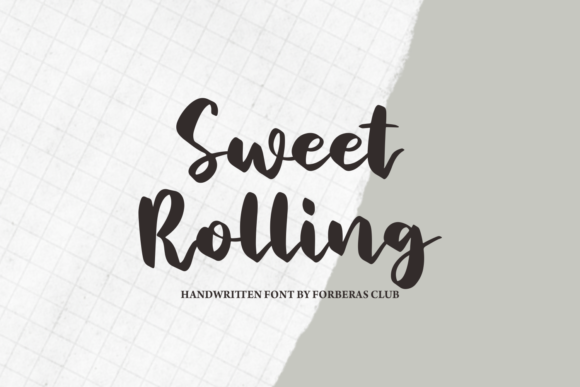
Indulge in the exquisite dance of your words with Sweet Rolling Font, an enchanting script that captivates the eyes like a whispered secret. Its flowing, ethereal curves evoke the timeless elegance of hand-drawn calligraphy, transforming your designs into captivating works of art.
Escape the mundane with Sweet Rolling Font, a font family that whispers luxury, warmth, and an enigmatic charm. Its delicate strokes ignite a spark of creativity, inviting you to express your unique style with flair and sophistication.
Let Sweet Rolling Font be your muse, guiding you through a realm of endless possibilities. Its meticulously balanced characters dance effortlessly across the page, creating harmony and visual intrigue that will leave a lasting impression.
Step into the world of fashion and embrace Sweet Rolling Font, the perfect companion for your branding aspirations. Its intrinsic elegance and captivating allure will elevate your message, captivating your audience with its timeless appeal.
Unleash the power of Sweet Rolling Font, a font crafted with passion and designed to inspire. Let its ethereal strokes ignite your creativity and transport your designs to new heights of enchantment. Experience the transformative magic of Sweet Rolling Font today!